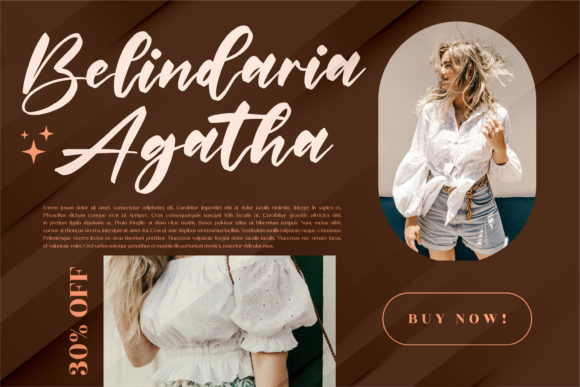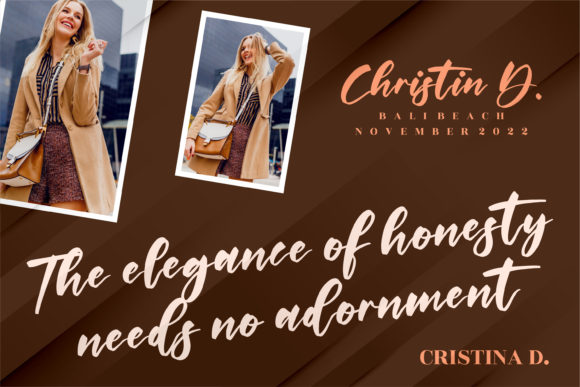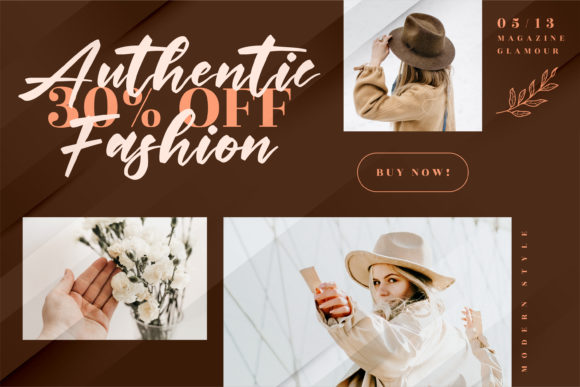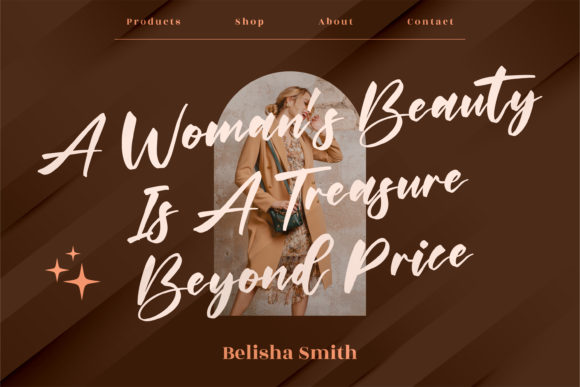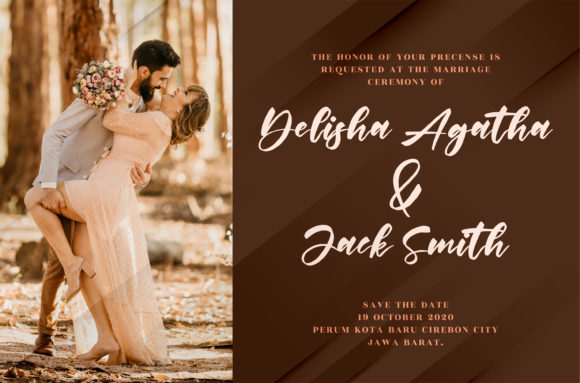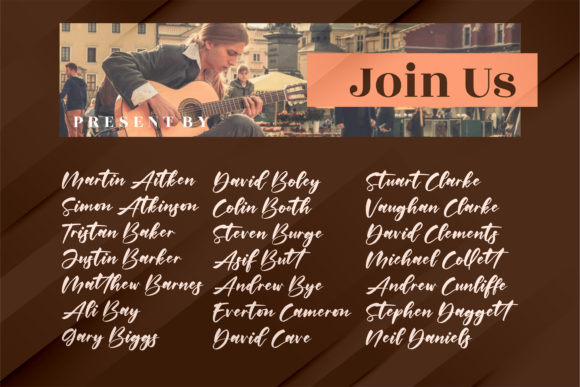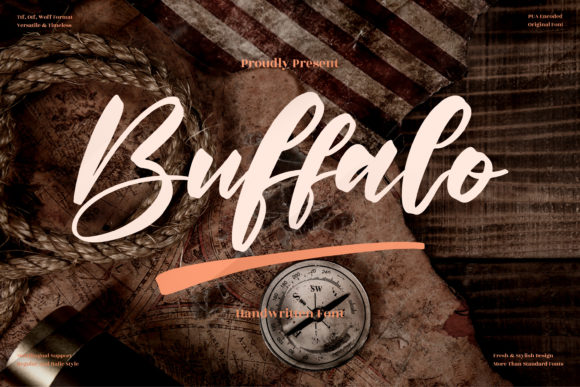
The Elegance of Buffalo Font: A Designer’s New Best Friend
I still remember the project that led me to discover the stunning Buffalo Font. I was working on a luxury brand’s branding materials, and my client requested a font that exuded sophistication and elegance. After hours of scouring font libraries, I stumbled upon Buffalo, and it was love at first sight! ✨ The chic, refined script font instantly elevated my design, and I knew I had found the perfect match. In this article, I’ll share my experience with Buffalo Font, its features, and how to make the most of it in your designs.
An Honest Review of Buffalo Font
• ✨ Elegant and sophisticated design that’s perfect for luxury brands
• ✅ Stylish alternates and ligatures that add a touch of refinement to any project
• 💫 Highly versatile and can be used for various design applications, from logos to stationery
• 🎨 Beautifully crafted to ensure excellent readability and legibility
While Buffalo Font is an excellent choice, there are a few things to keep in mind: 🤔
• ⚠️ Limited use of uppercase letters, which may require creative workarounds
• 😐 Some users may find the font too ornate or elaborate for certain projects
A Practical Guide to Using Buffalo Font
The Story Behind Buffalo Font
Buffalo Font was designed by a team of skilled typographers who aimed to create a font that embodies sophistication and elegance. The font’s design is inspired by classic calligraphy and refined script fonts, with a modern twist to make it suitable for a wide range of design applications.
Q: What is the best use for Buffalo Font?
A: Buffalo Font is ideal for luxury brands, high-end products, and any project that requires a touch of sophistication and elegance.
Q: Is Buffalo Font suitable for body text?
A: While Buffalo Font is beautiful, it’s recommended to use it for headlines, titles, or short paragraphs due to its elegant, yet elaborate design.